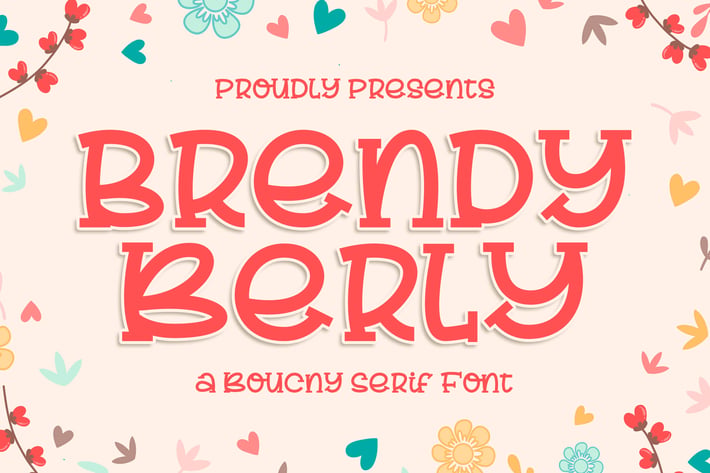
Brendy Berly a Bouncy Serif Font
Introducing of our new product the name is Brendy Berly a Bouncy Serif Font. Brendy Berly inspired by bouncy quirky this font is a fun theme very good for, book cover, poster, t-shirt, quote, logotype, craft and etc.